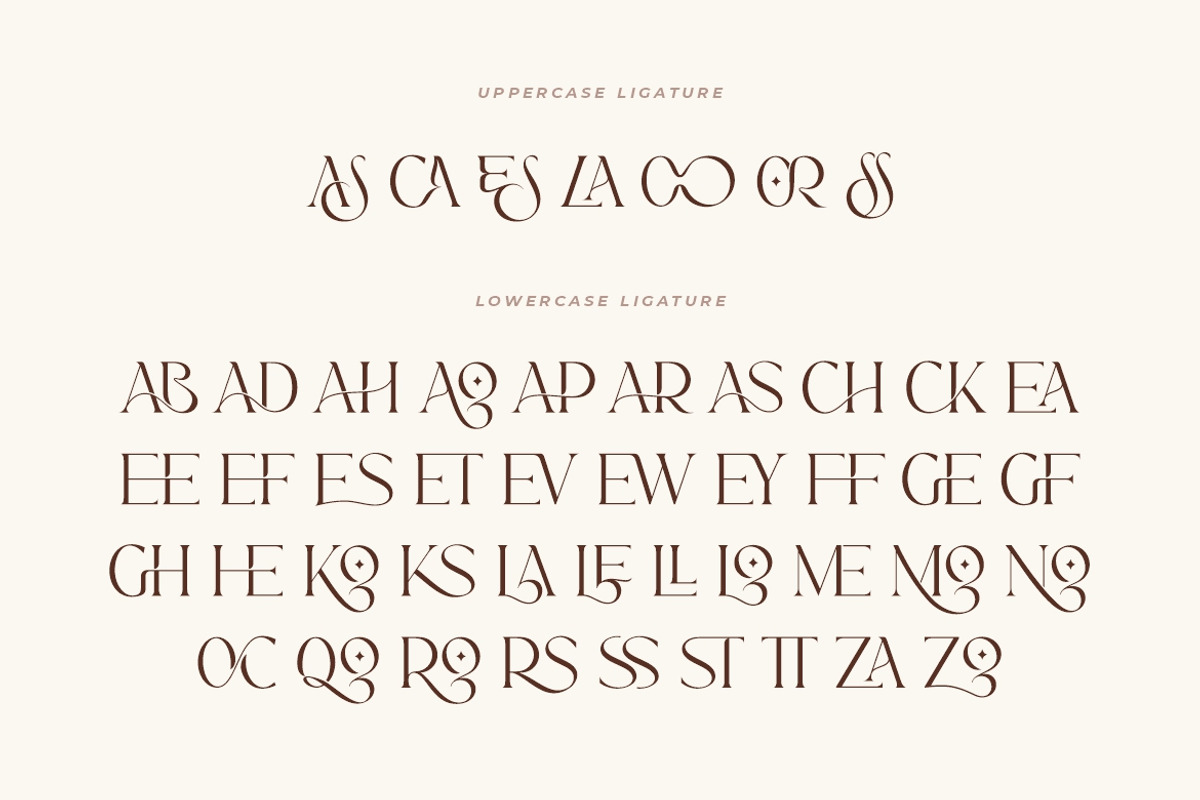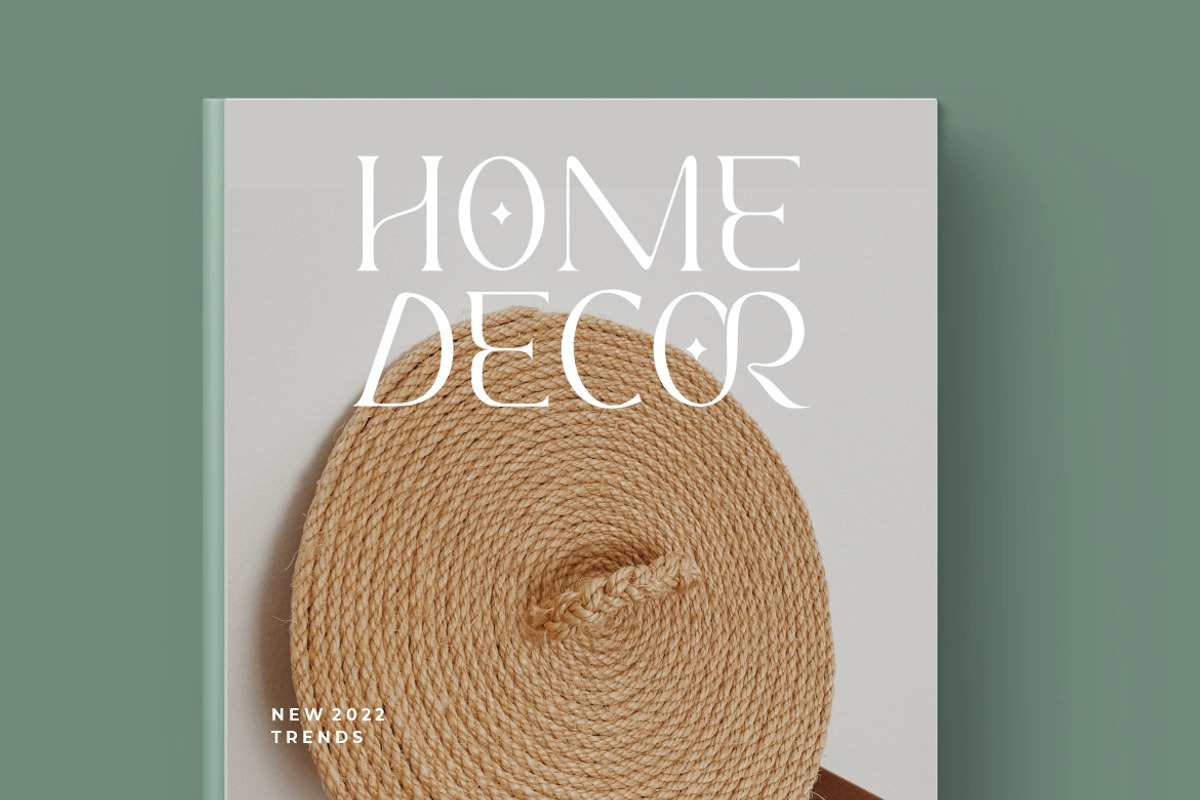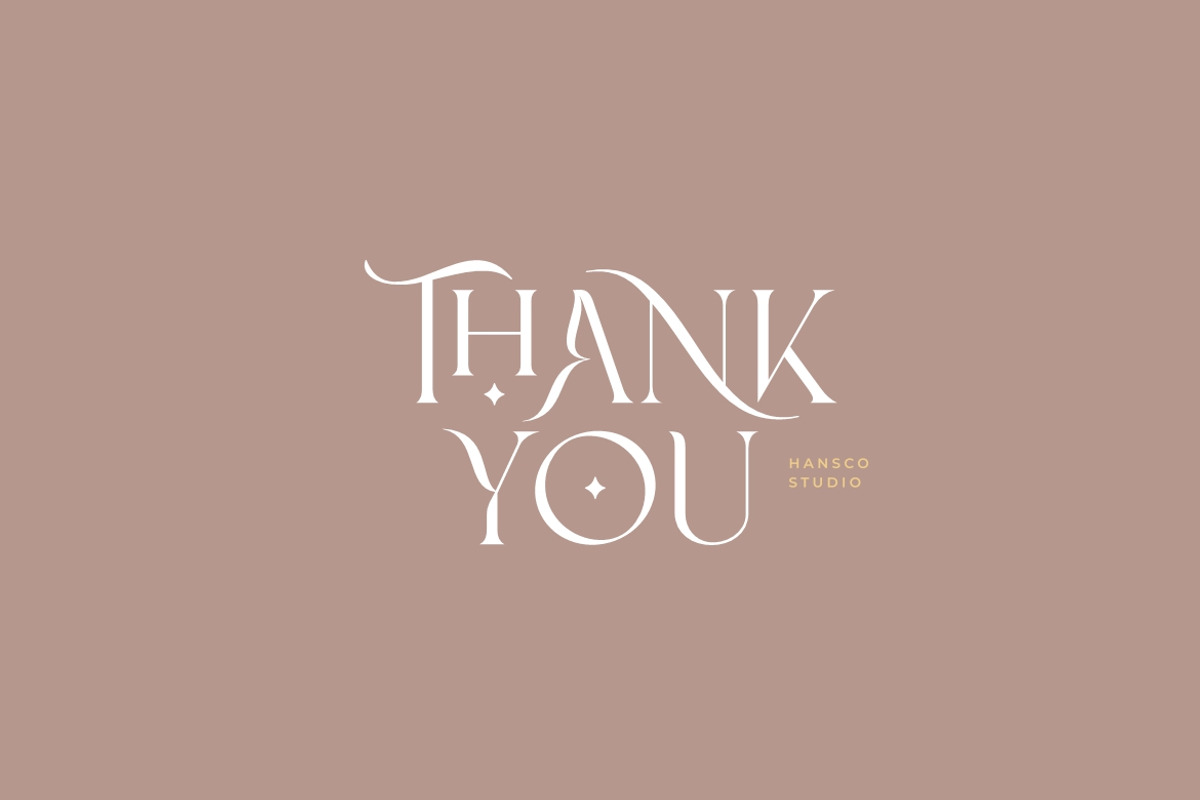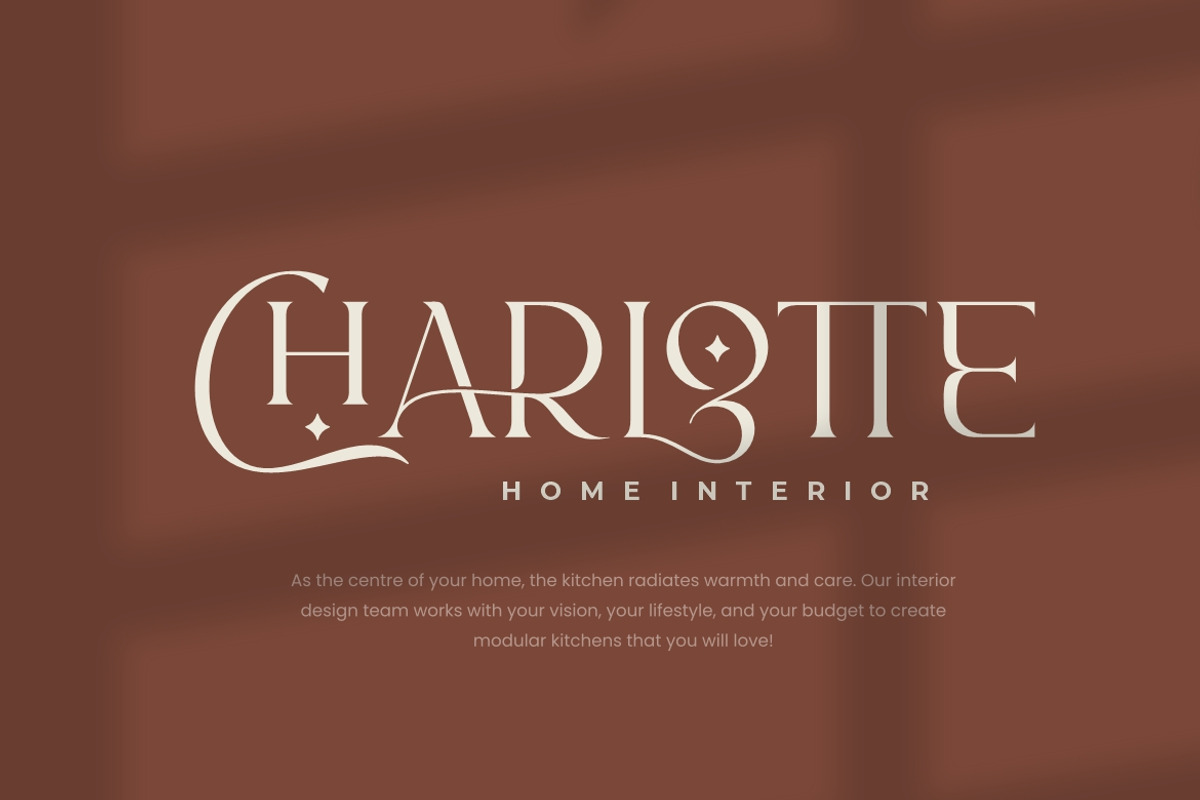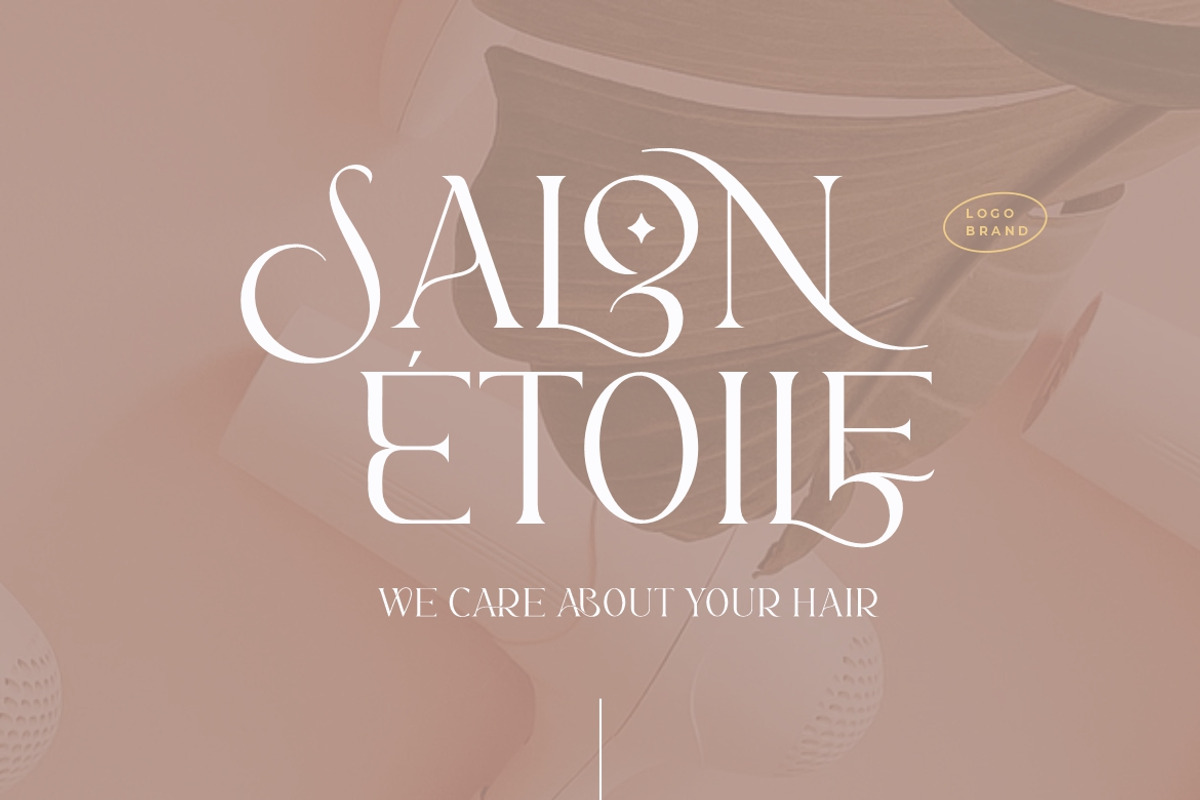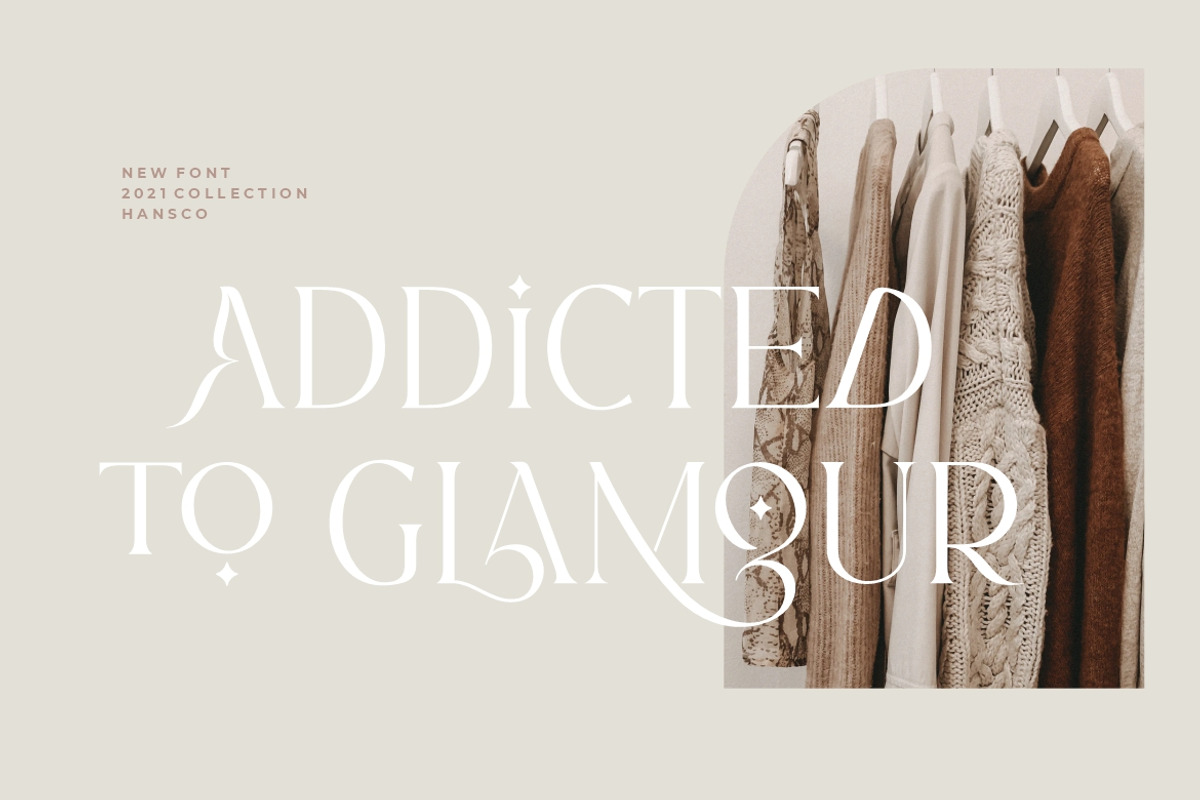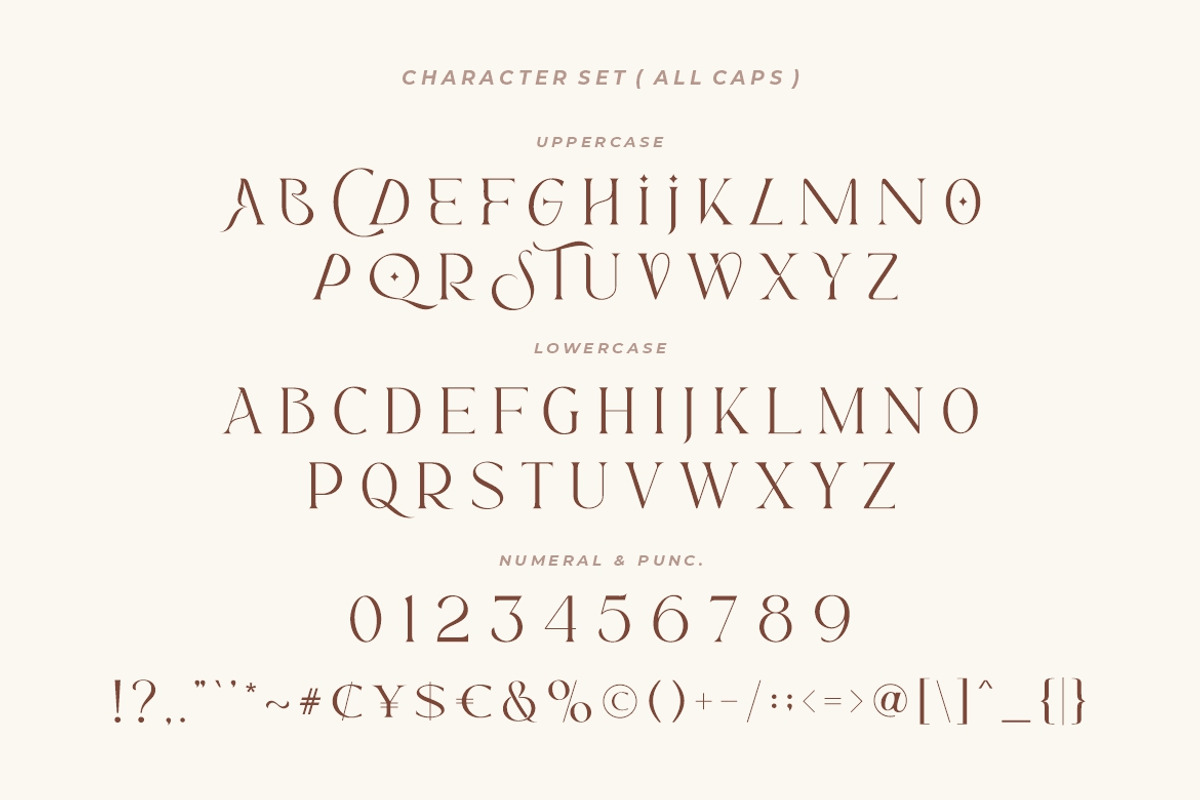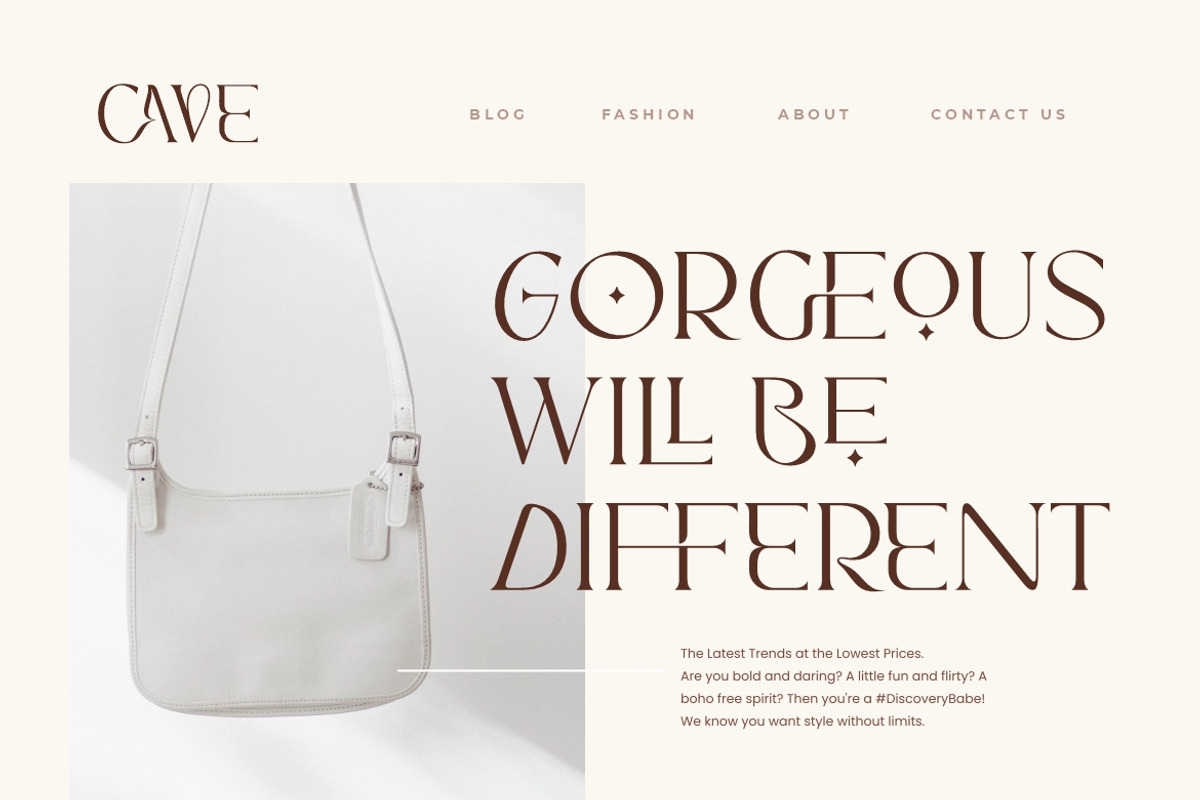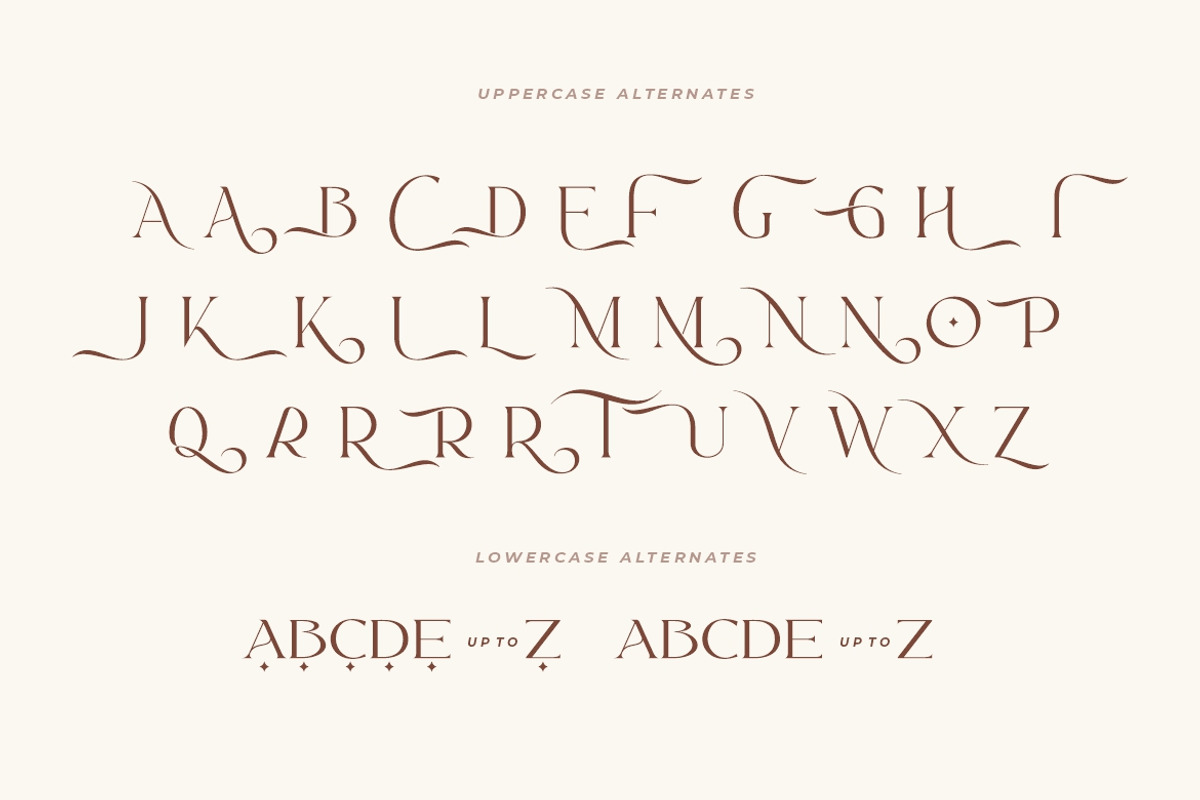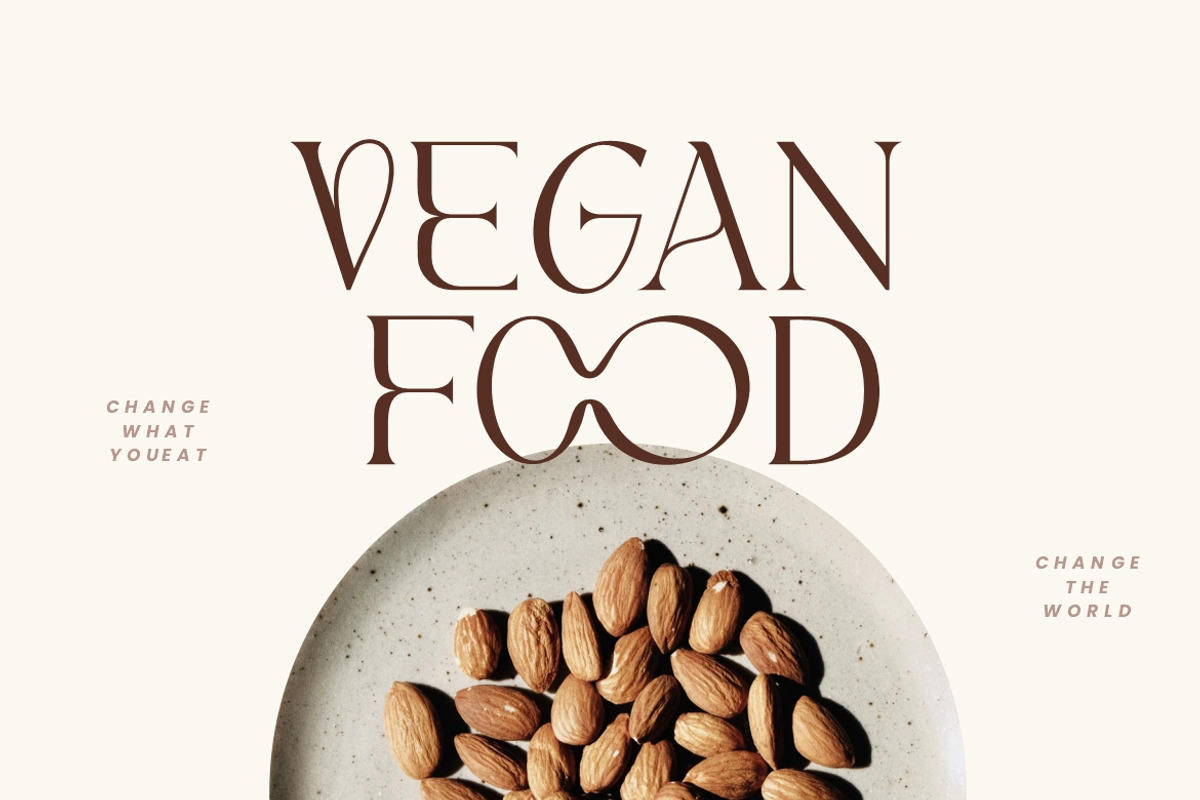
Sunroll - Modern Elegant Serif
Sunroll is a modern, elegant and playful display serif typeface that had that sleek and luxury feel. This font is perfectly into those classy moodboards and logos. It come with a unique all caps and many alternates and ligature plus numbers, punctuation & multilingual letters.
- alternates
- swashes